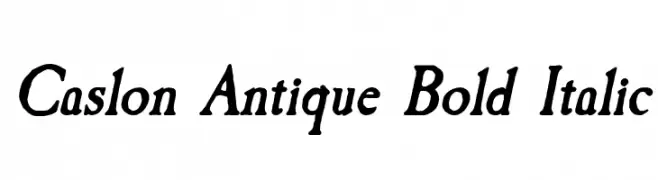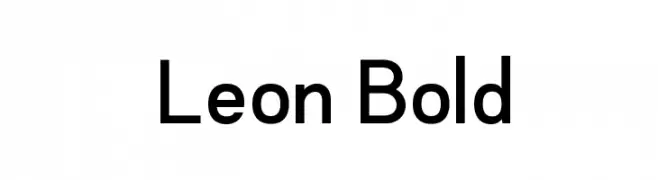
A modern, light sans-serif font with clean, minimalistic design.
A thin, minimalist font with clean lines and balanced spacing.
A clean, modern monospaced font with uniform spacing and clear legibility.
A classic serif typeface with elegant lines and moderate contrast.
A bold, modern sans-serif font with geometric structure and uniform strokes.
A clean, modern font with smooth, rounded edges and uniform stroke width.
An elegant serif font with an italic slant, featuring moderate contrast and graceful curves.
A modern, rounded font with consistent stroke width and excellent legibility.
A bold, italicized serif font with a classic and antique style.
A modern, extra light sans-serif font with clean lines and balanced spacing.